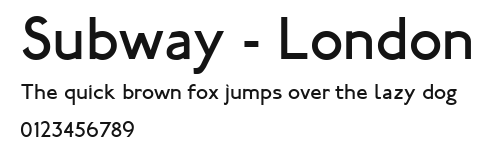
• Font Name: Subway - London
• Full Font Name: Subway - London
• Copyright: Jonathan Paterson 1994. Alphabet characters based on Edward Johnston's London Underground type designed for London Transport in 1915.
About Subway - London.ttf
Subway - London.ttf is a modern, elegant sans-serif font designed for ultimate readability and visual harmony. Perfect for branding, headlines, web design, and print materials.